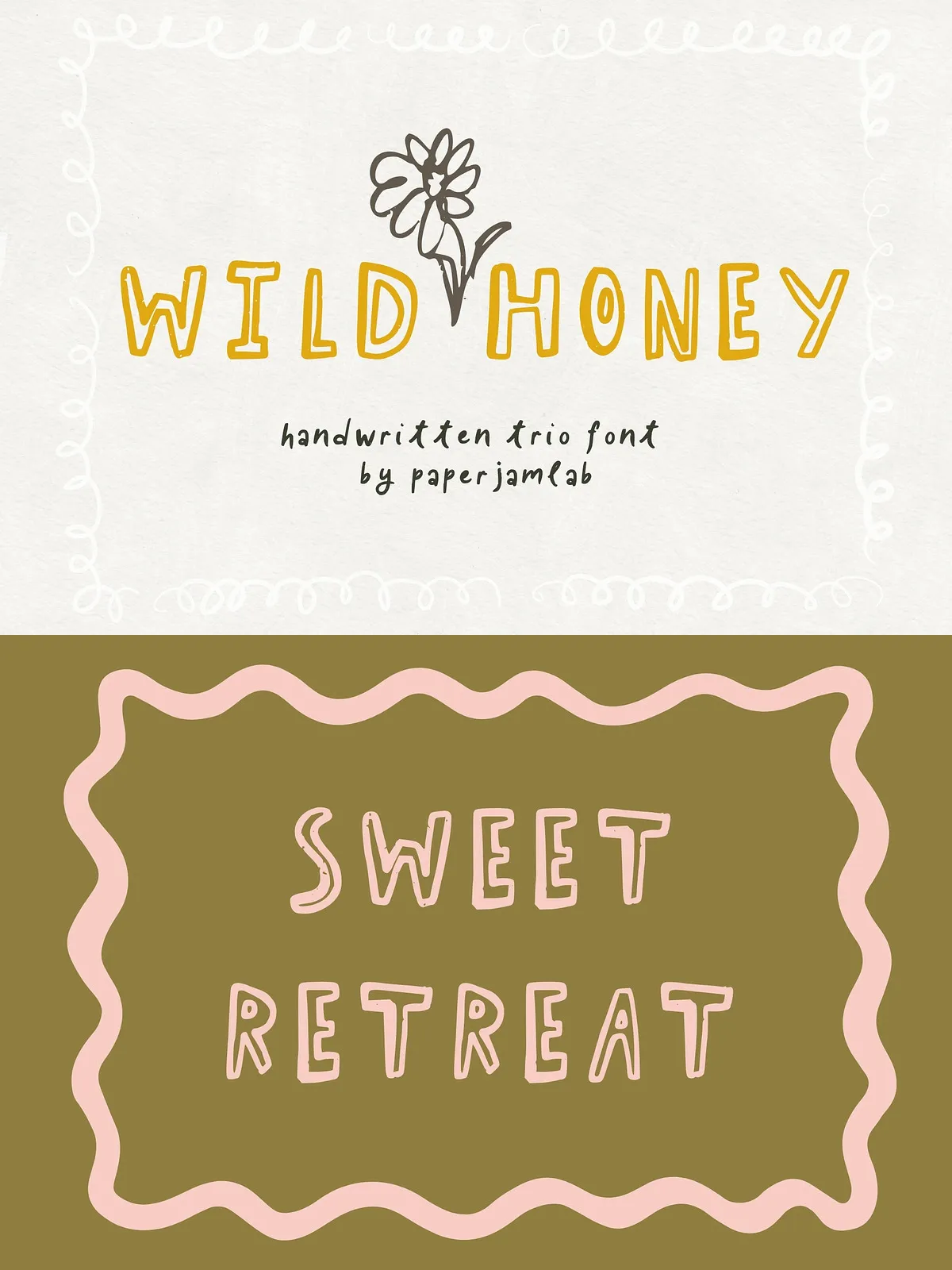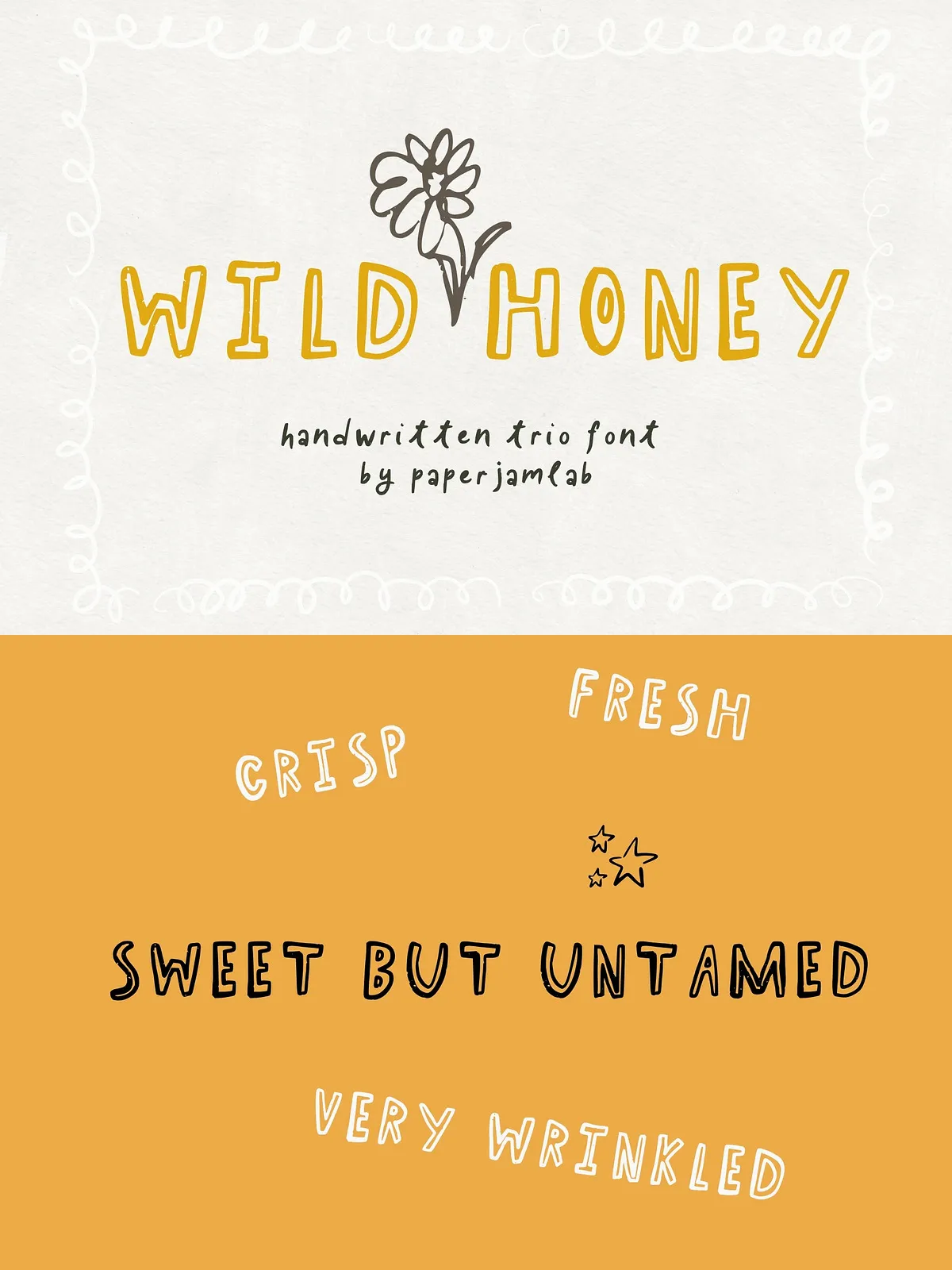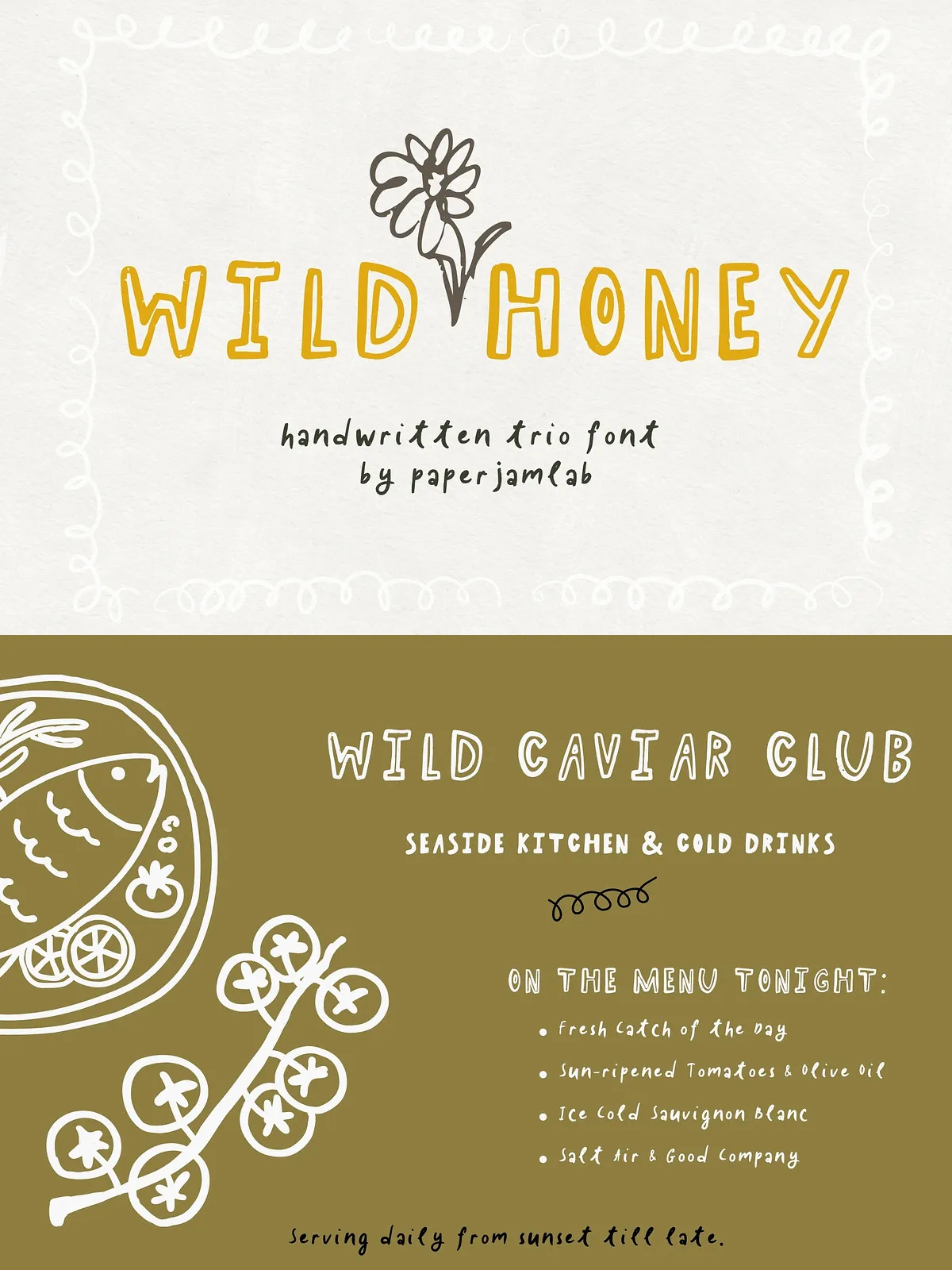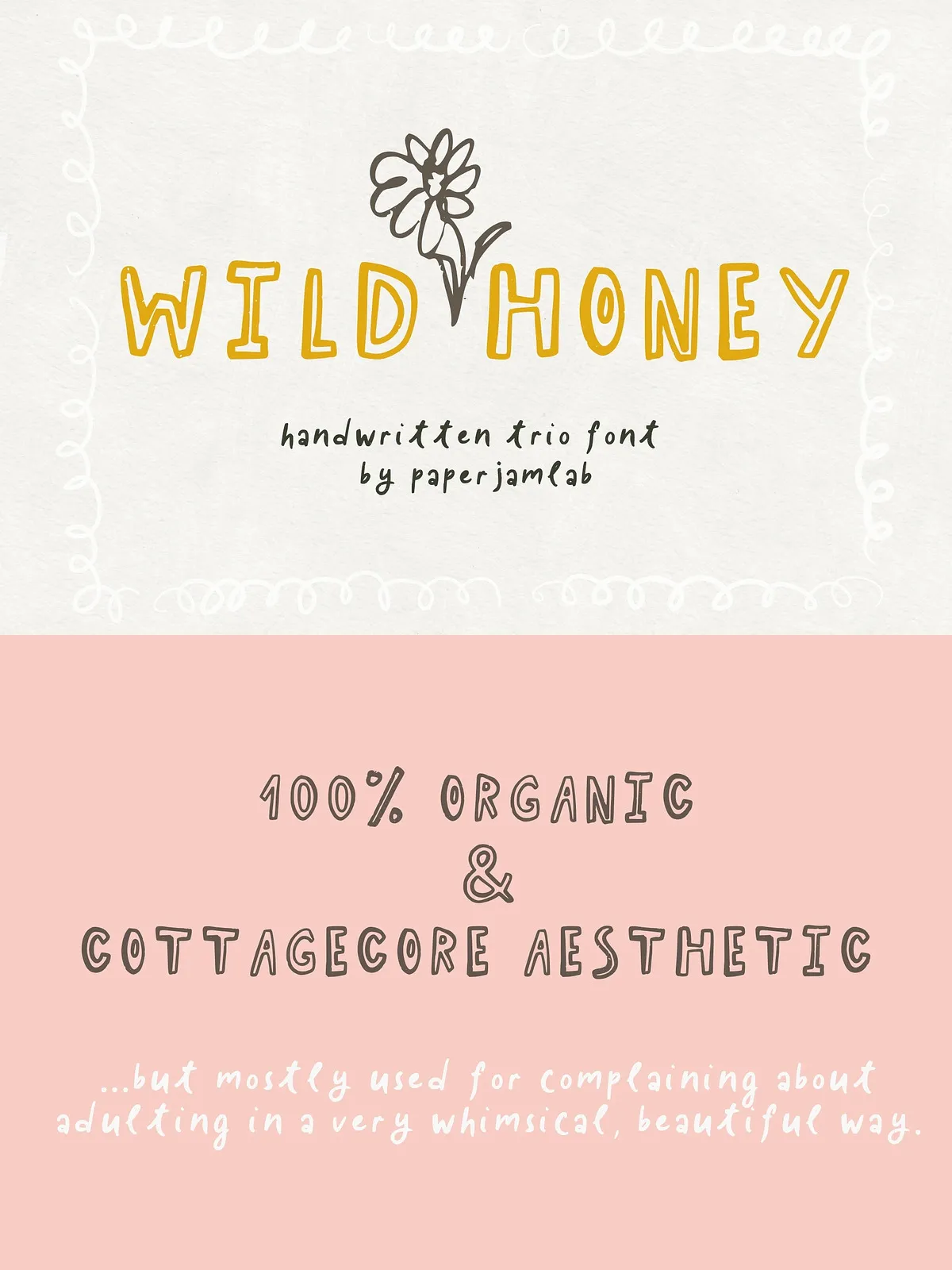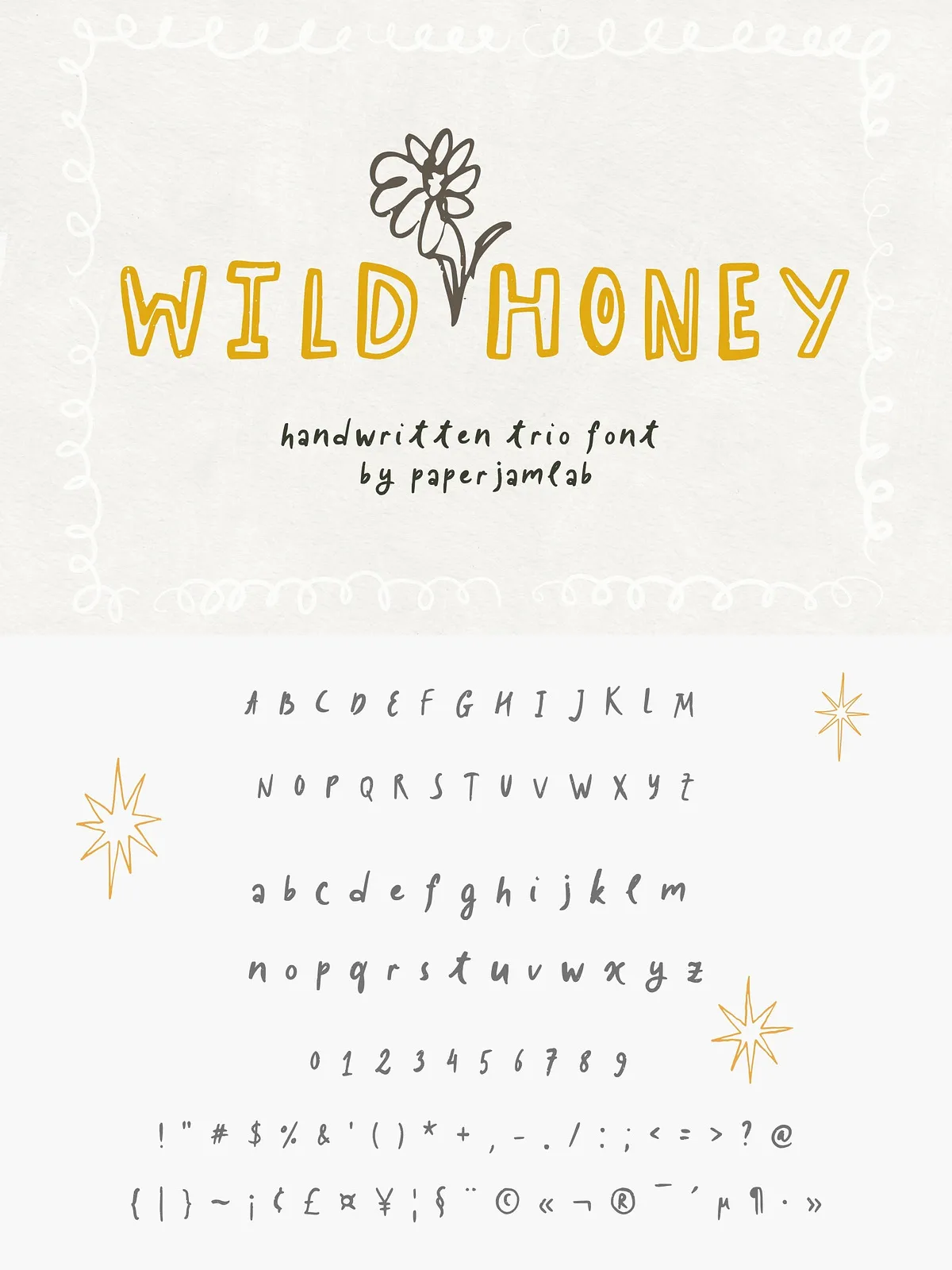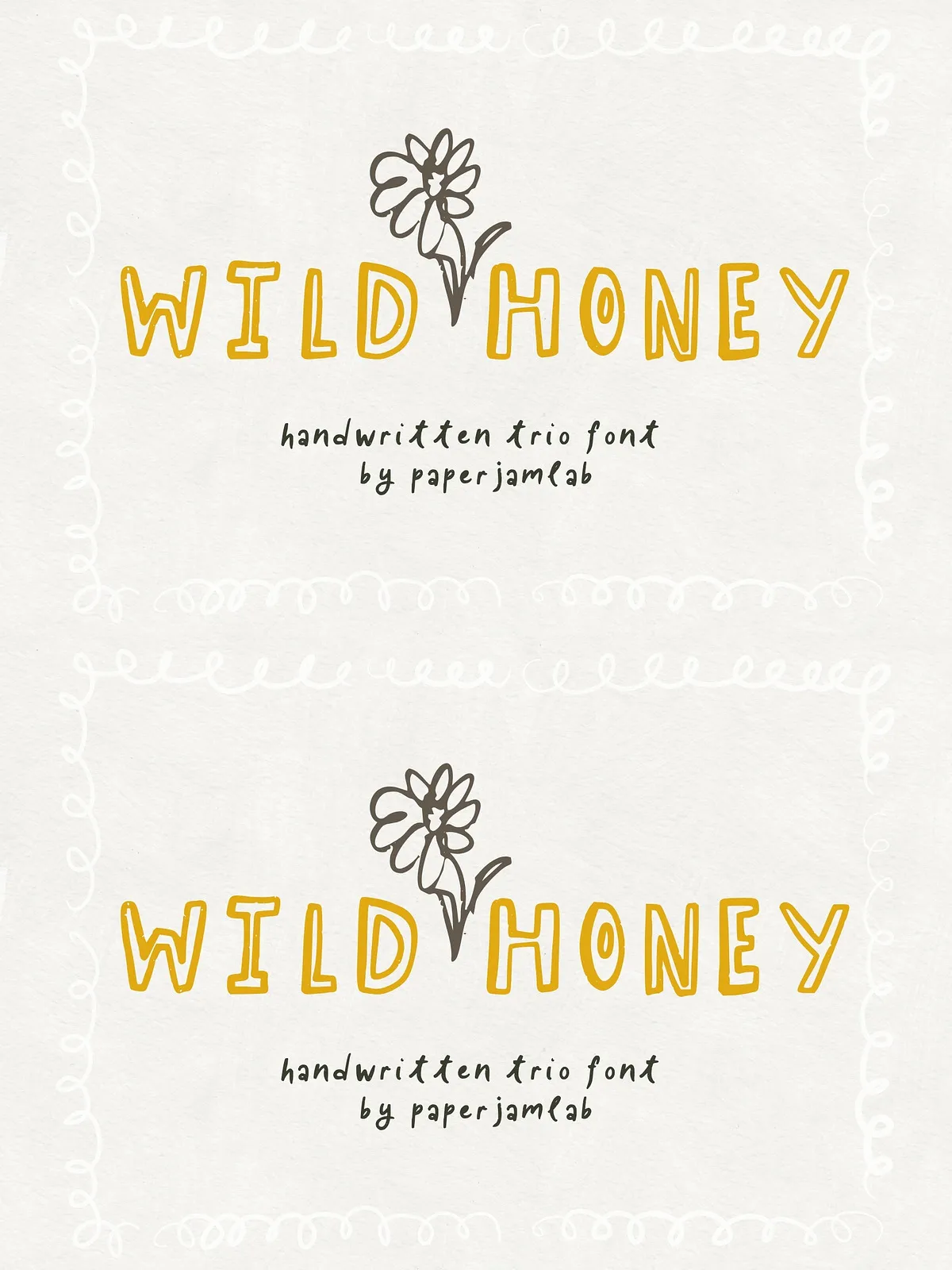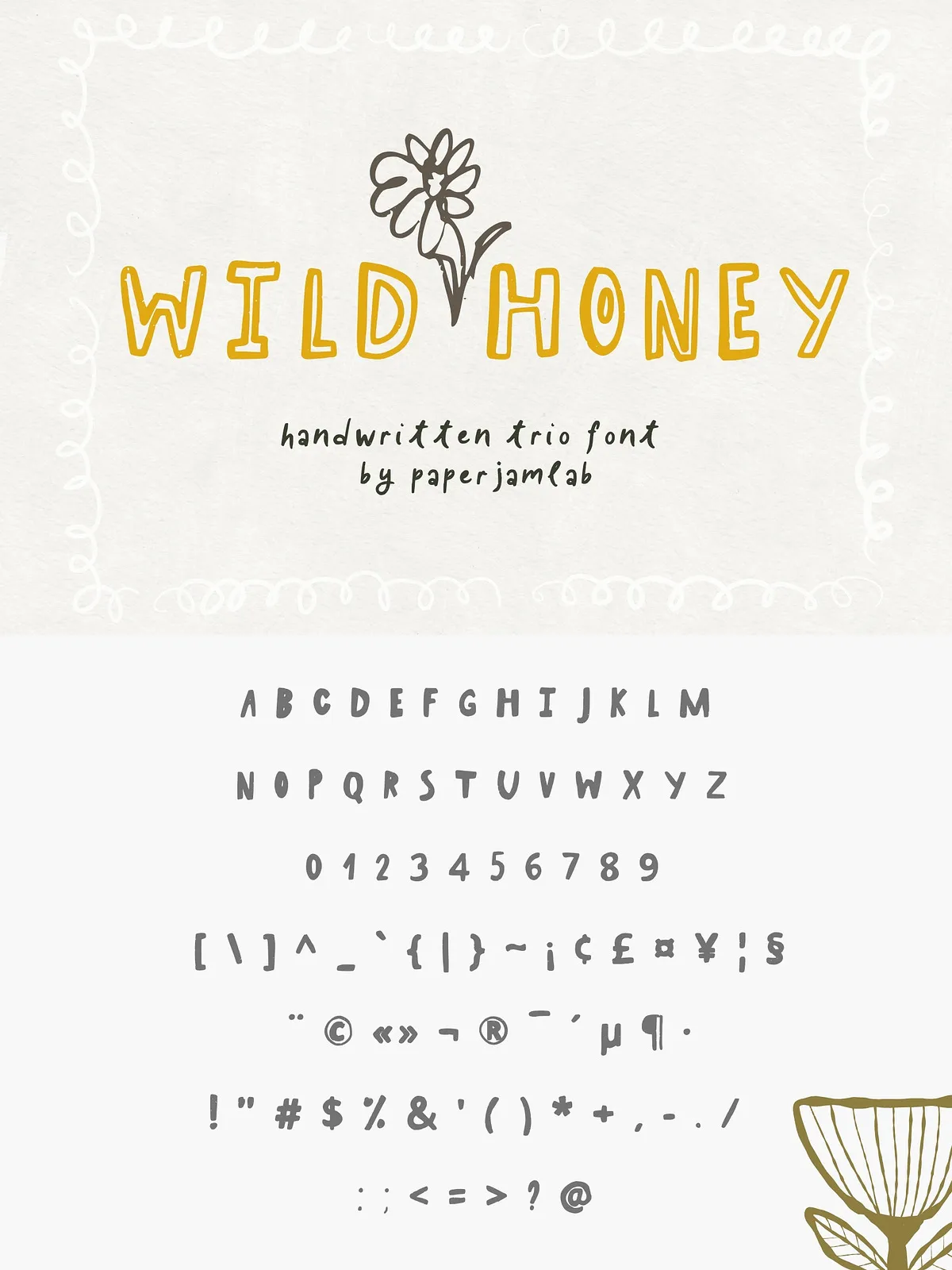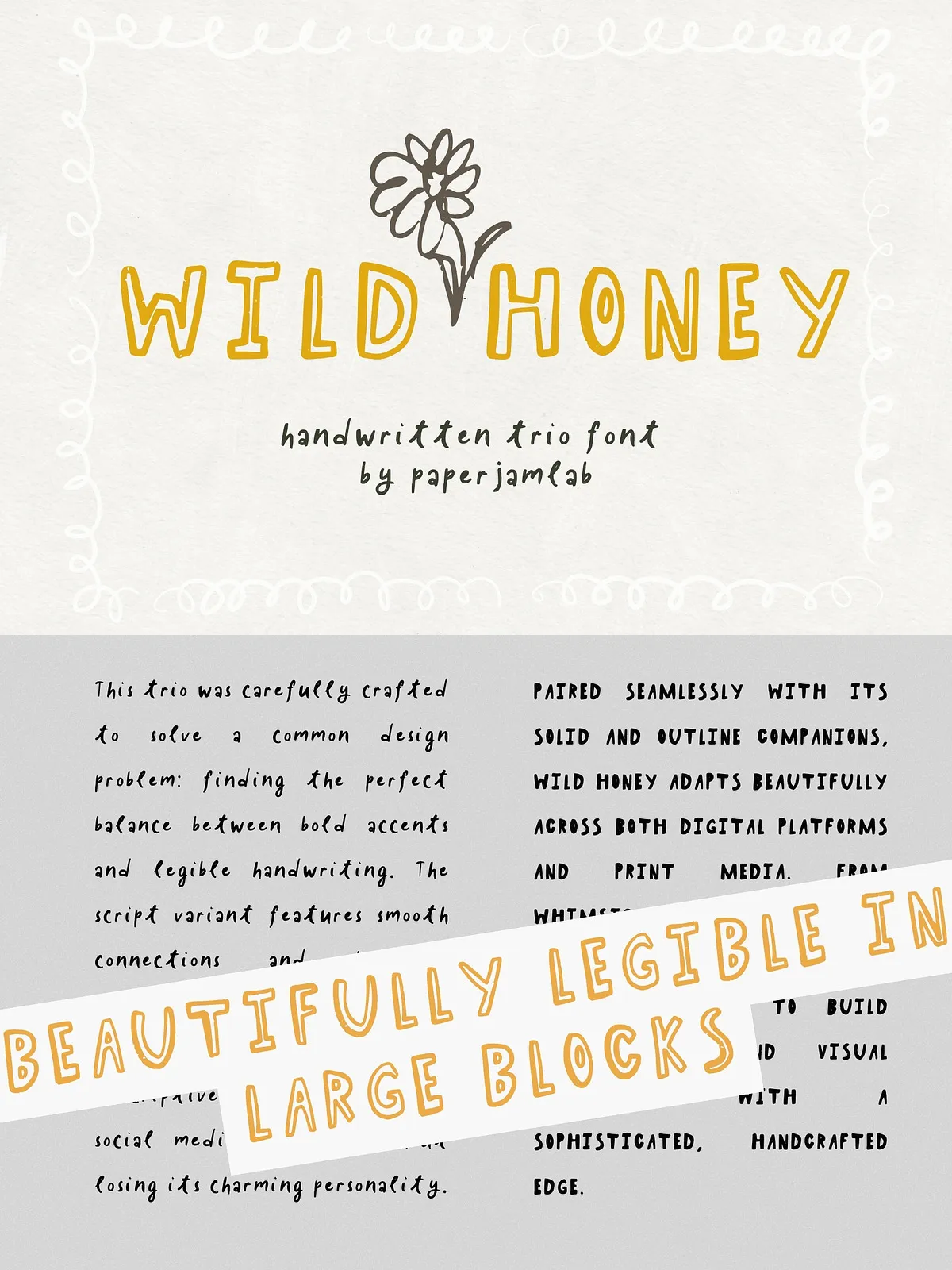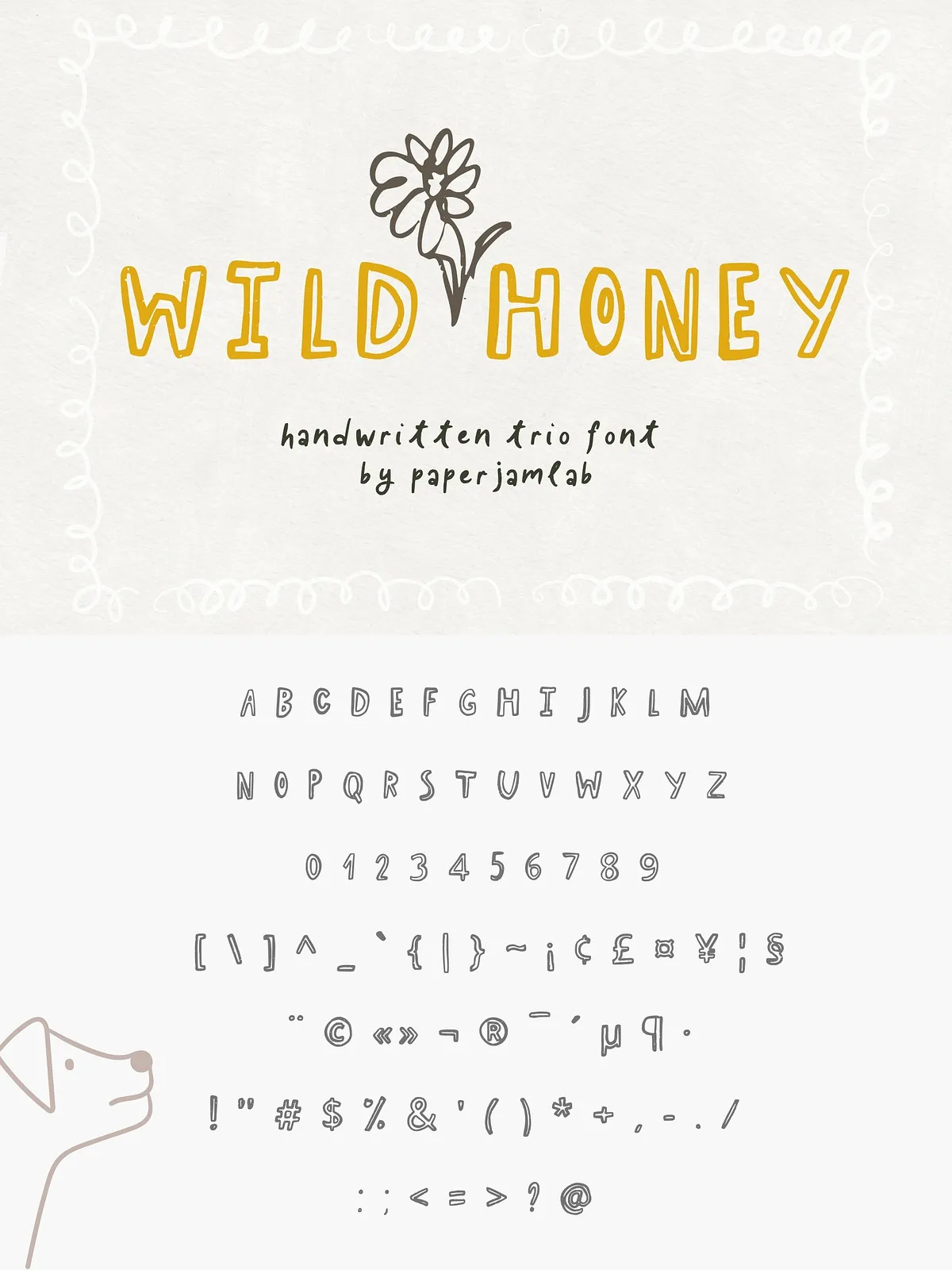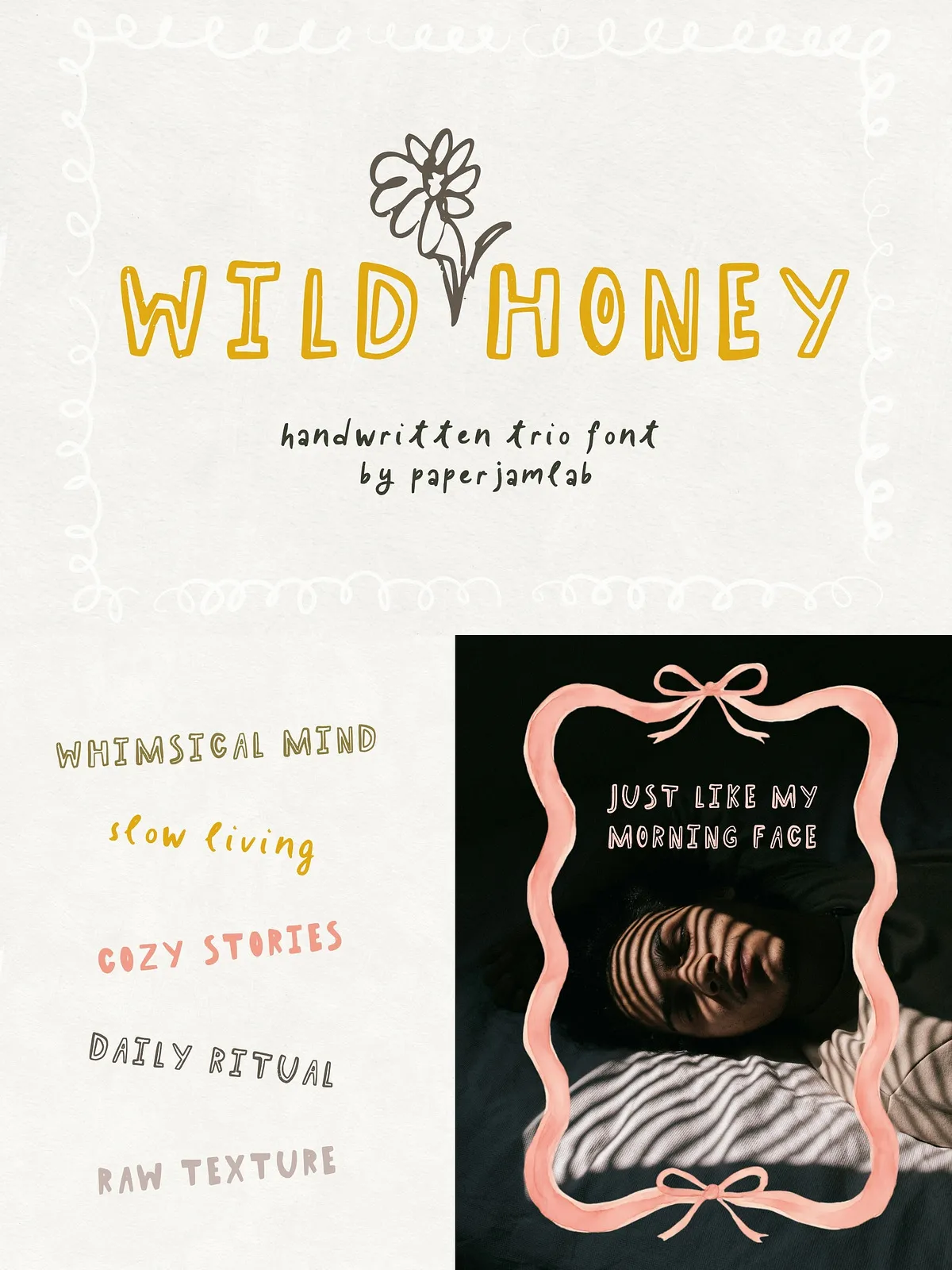
Wild Honey. Whimsical Font
Wild Honey delivers a tactile, handcrafted voice that reads as warm, personal, and slightly wild. The family blends human imperfection with deliberate design: irregular terminals, gently varying stroke widths, and organic curves that suggest ink on textured paper. This typeface refuses sterile geometry and instead embraces the rhythmic irregularities of real handwriting, making it ideal for brands and projects that want to feel honest, intimate, and thoughtfully made.
What Makes Wild Honey Different
Unlike rigid display faces, Wild Honey leans into motion and personality. It carries a quirky warmth through unexpected ligatures, playful terminals, and an overall looseness that still reads clearly in display contexts. The collection balances expressive character with practical usability so you can use it across packaging, editorial headlines, and identity work without sacrificing readability or professional polish.
• Full uppercase and lowercase alphabets
• Numerals, punctuation, and essential symbols
Best Applications
• Slow-living and artisanal branding — craft logos that communicate warmth and human touch.
• Packaging for handmade goods, small-batch products, and botanical goods.
• Editorial headlines and feature spreads that require personality and tactile appeal.
• Invitations, greeting cards, and stationery — deliver an emotive, handcrafted impression.
• Social media and lifestyle imagery — frame captions and quotes with a cozy, authentic tone.
Pairing & Typography Strategy
Pair Wild Honey with clean, neutral sans-serifs for body text to maintain hierarchy and ensure legibility. A restrained geometric or humanist sans in medium weight provides contrast and grounds layouts, allowing Wild Honey’s irregular shapes to act as focal points. For luxurious or editorial contexts, combine the Solid style with a light serif for an elevated, craft-forward look.
Use the Outline variant to construct layered headlines and sticker-style graphics by stacking it over the Solid weight with a slight offset or colored stroke. Deploy the Script for signatures, endorsements, or secondary accents that require a looser, handwritten feel. When setting longer phrases, increase letter-spacing subtly to preserve open counters and avoid collisions between extended strokes.
Examples and Inspirations
How Designers Use Wild Honey
• Brand identities that feel handcrafted and authentic, especially for slow-food, botanical, and maker businesses.
• Limited-edition product labels that benefit from a human touch and visible texture.
• Editorial mastheads and pull quotes that require personality without compromising clarity.
• Event stationery and wedding invitations seeking an approachable, romantic aesthetic.